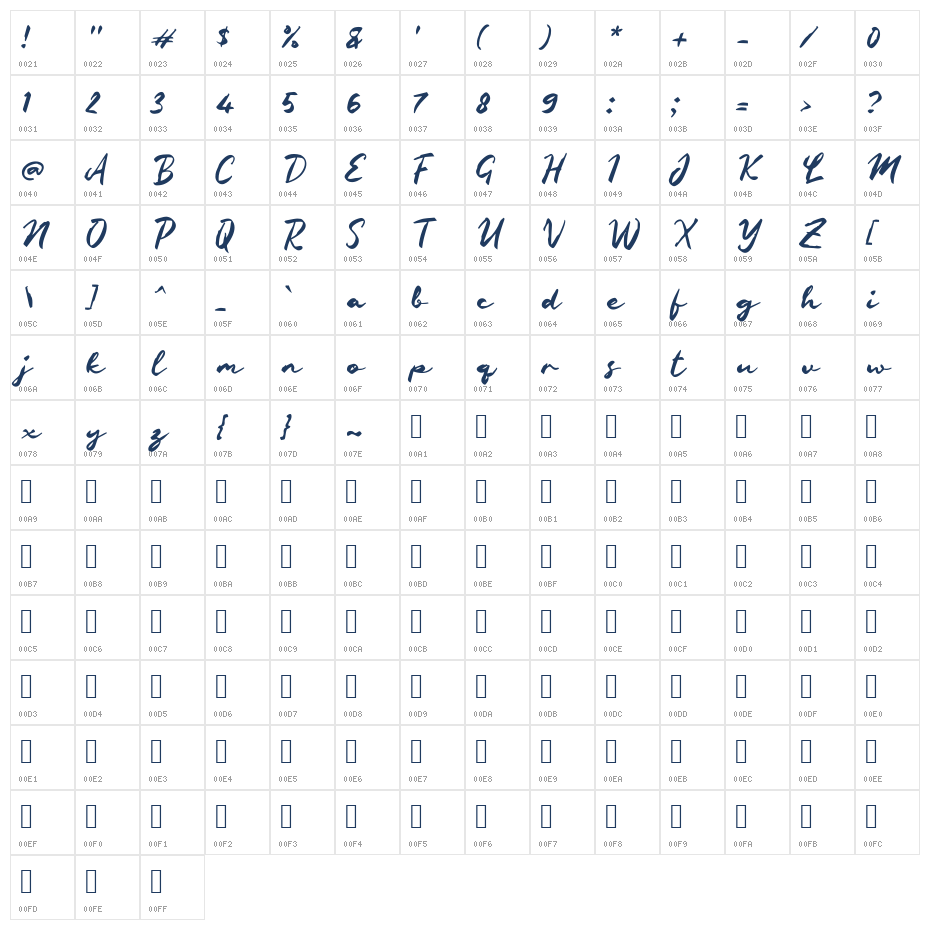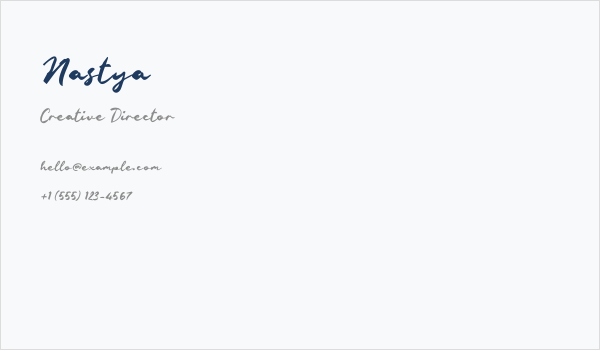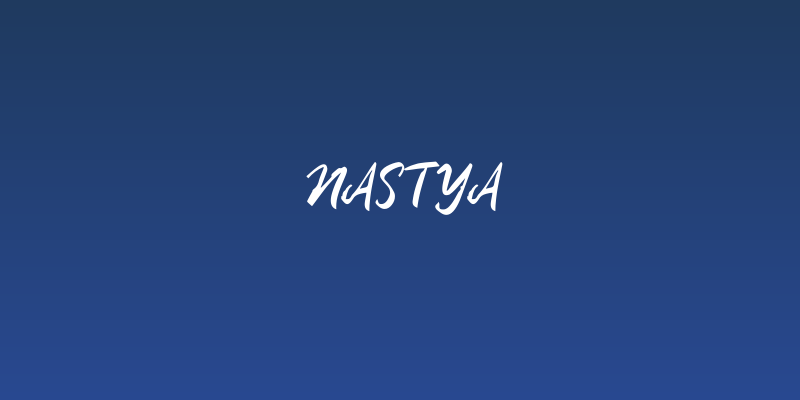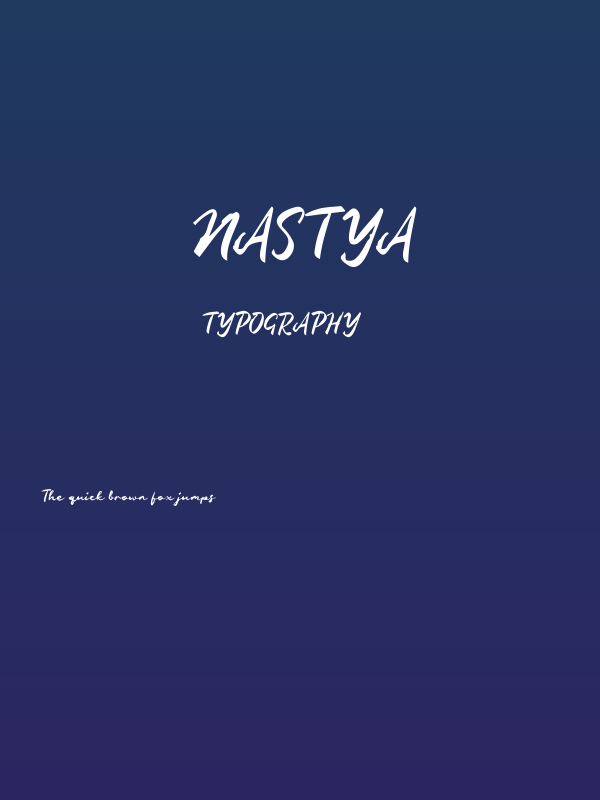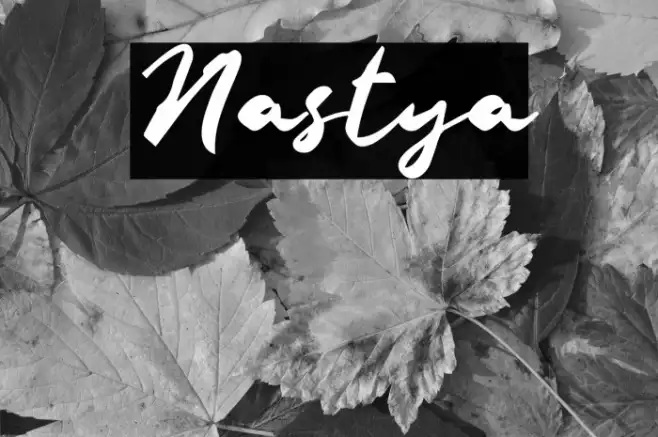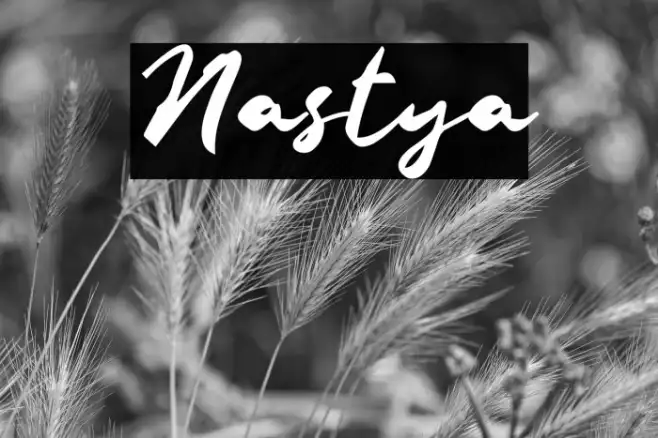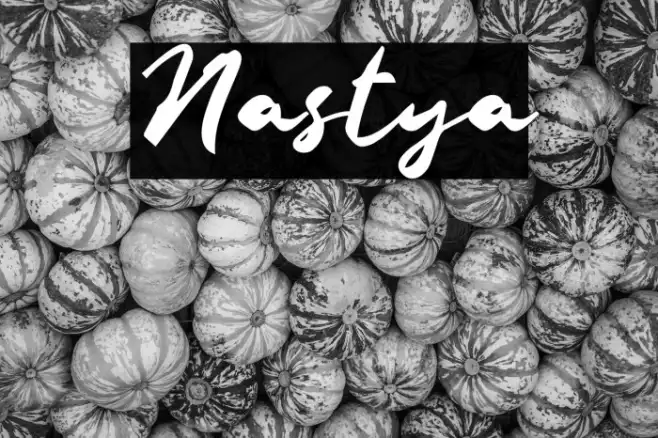
Nastya Font
Nastya Description
A casual, handwritten script font with a smooth, flowing style that mimics natural handwriting.
| Overall Style | Casual, Handwritten |
| Use Case | Invitations, greeting cards, branding, logos, personal projects |